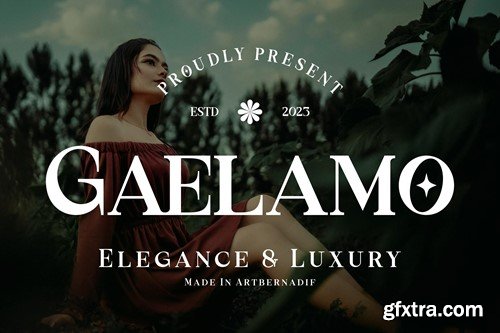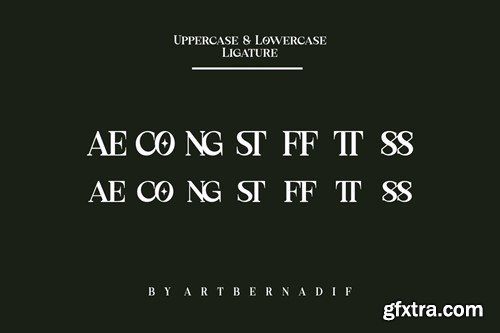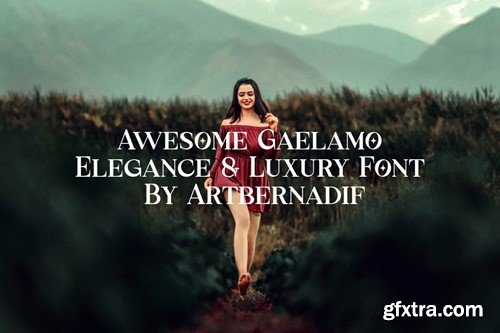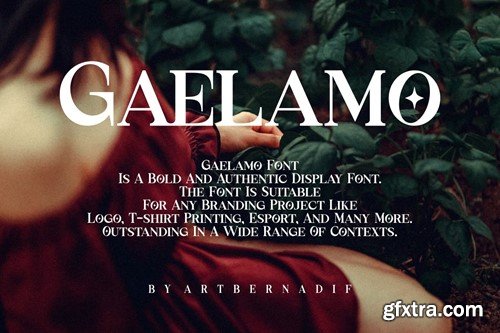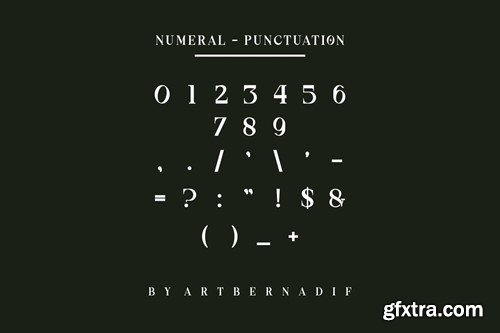
Gaelamo Font DPXKD2X
Gaelamo Font
Introducing our new product Gaelamo Font - Modern Font Gaelamo Font- Modern Font is a bold and authentic display font. The font is suitable for any branding project like logo, t-shirt printing, esport, and many more. outstanding in a wide range of contexts. availlable